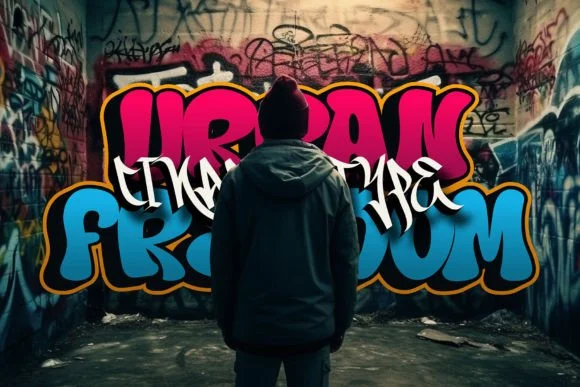
Hard Zone Font 3D layered spray painting text style loaded with routinely created letters and clearing swashes. Shadows mix cunningly with each person, providing your plans with a momentary feel of force and dynamism.
The adventures, emphatic titles, and entrancing promotion duplicates Hard Zone never neglects to consider getting.
Hard Zone Font and shadow play a deception of profundity and a 3D energy that prominently elevates the visual allure; it isn’t recently perused yet strikingly saw to guarantee your text.
With its mix of flexibility and a crude restless allure, Hard Zone is the go-to text style for projects hankering a compelling and metropolitan pizazz.